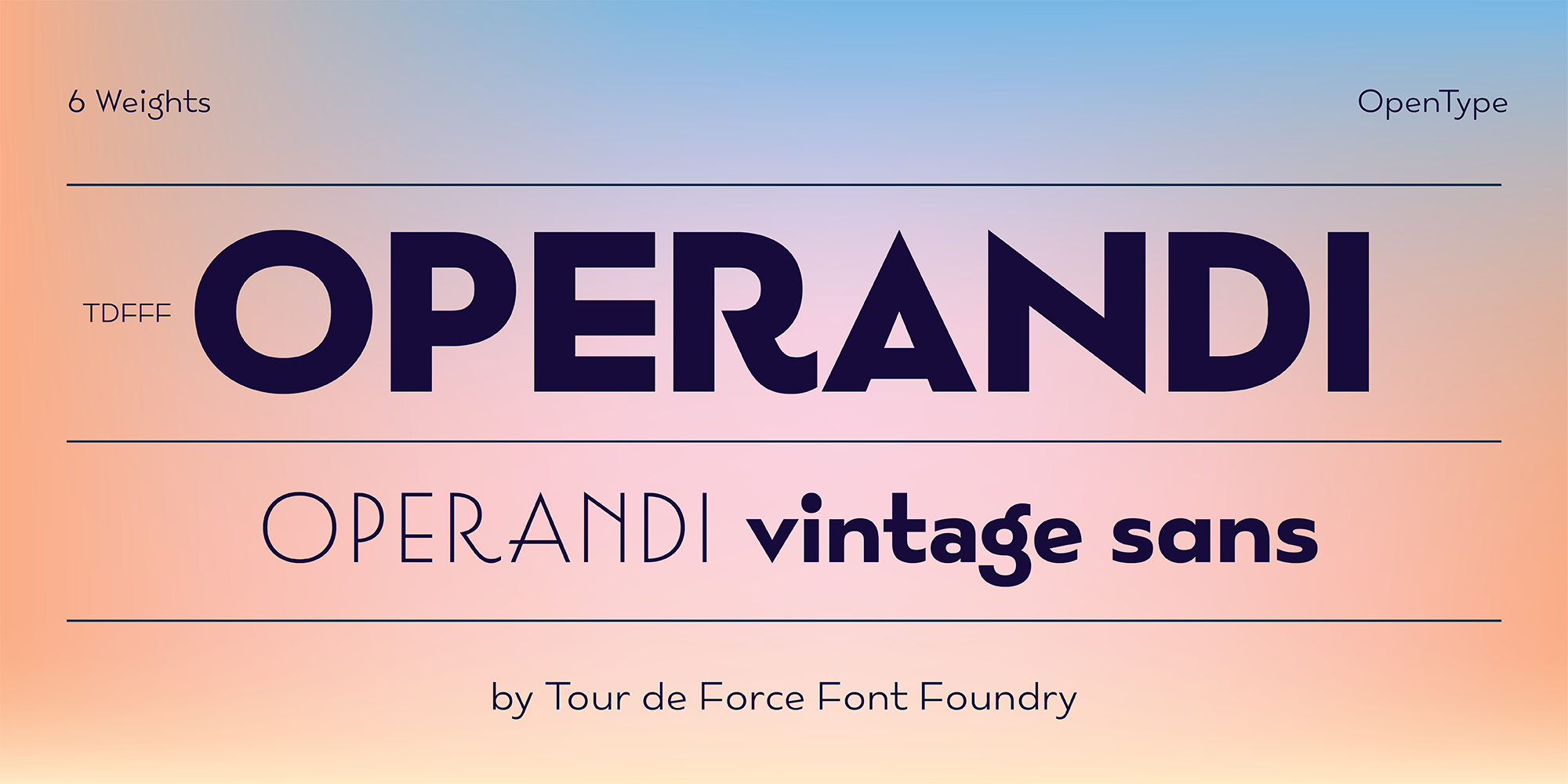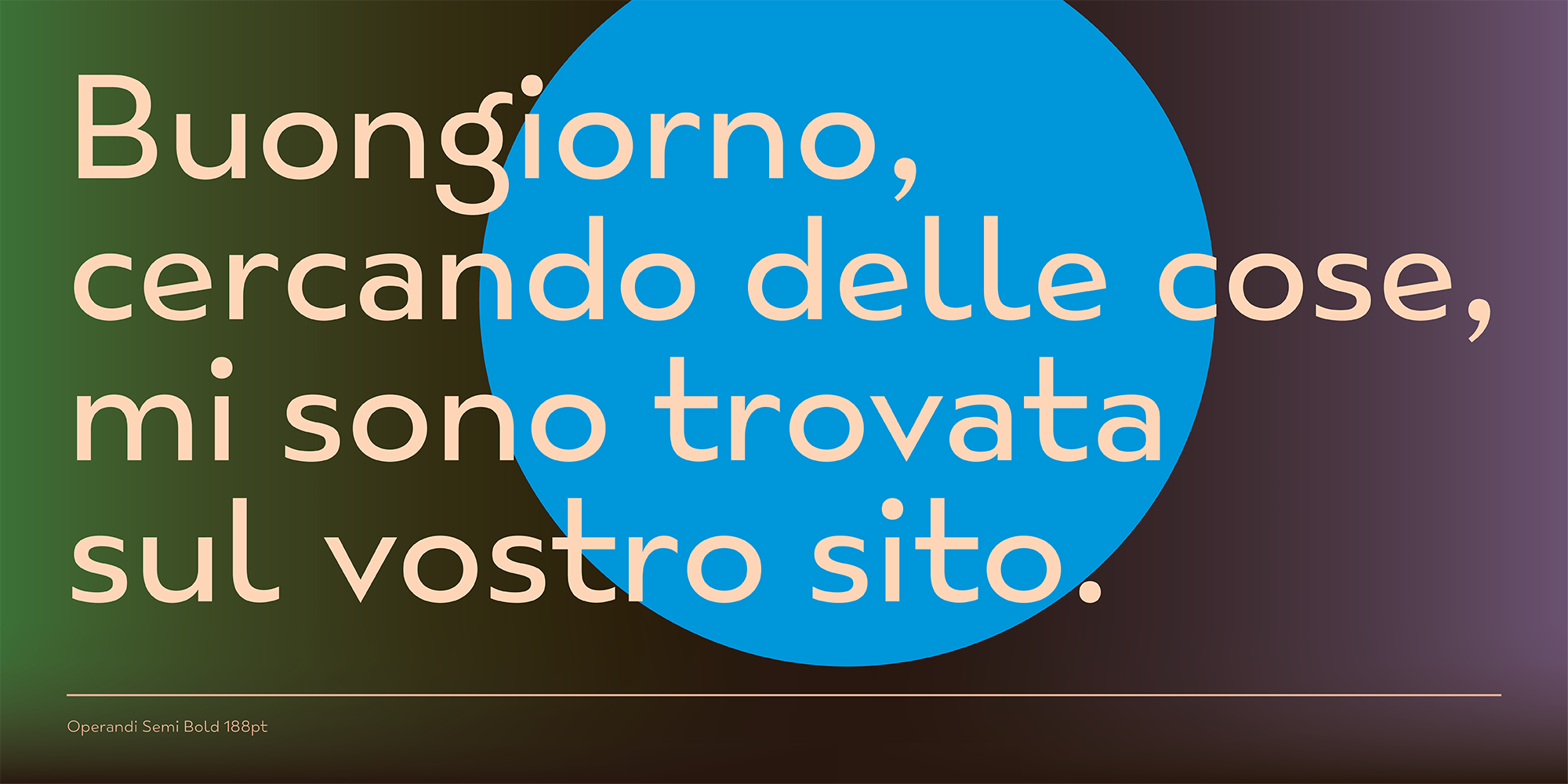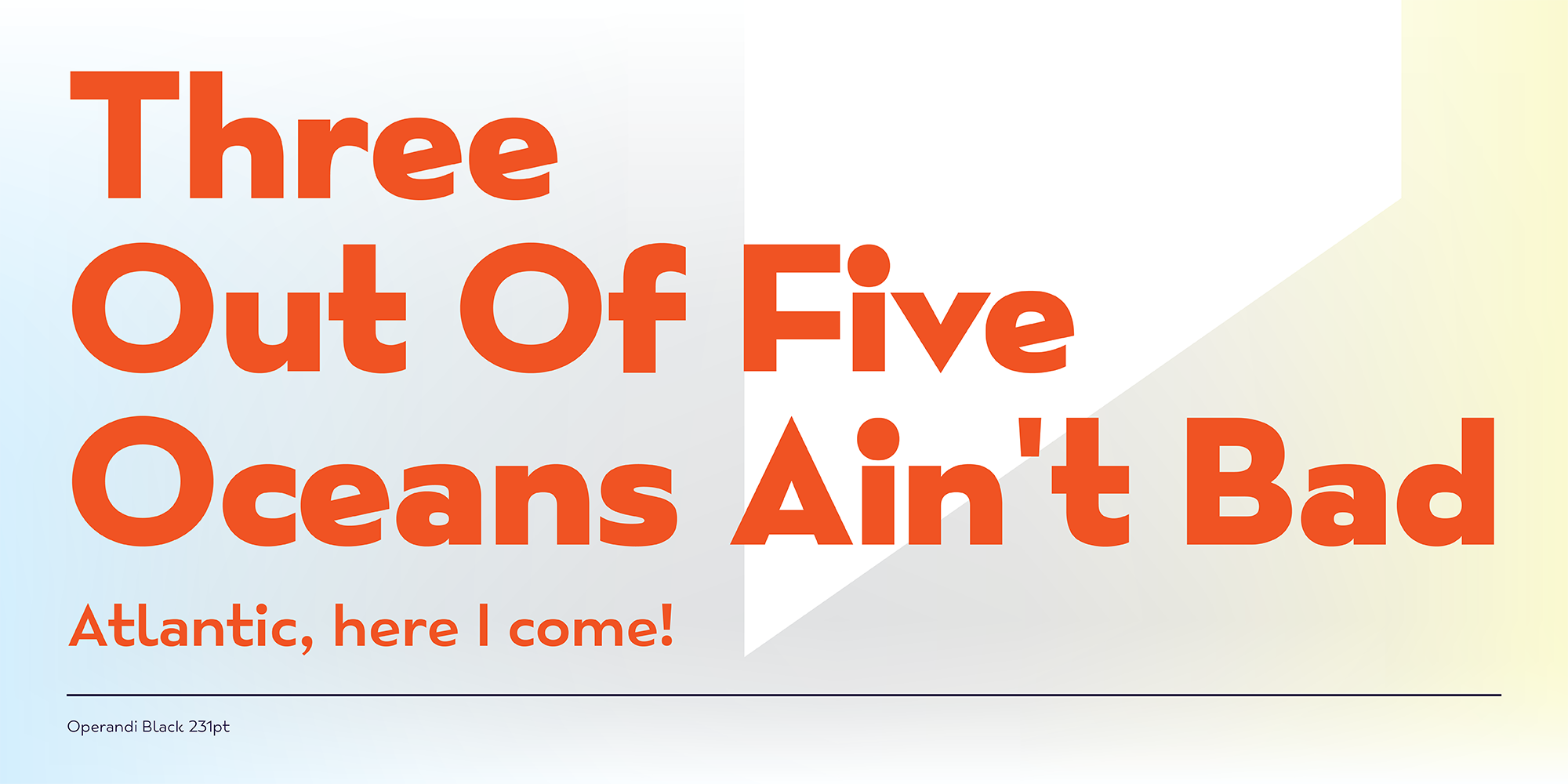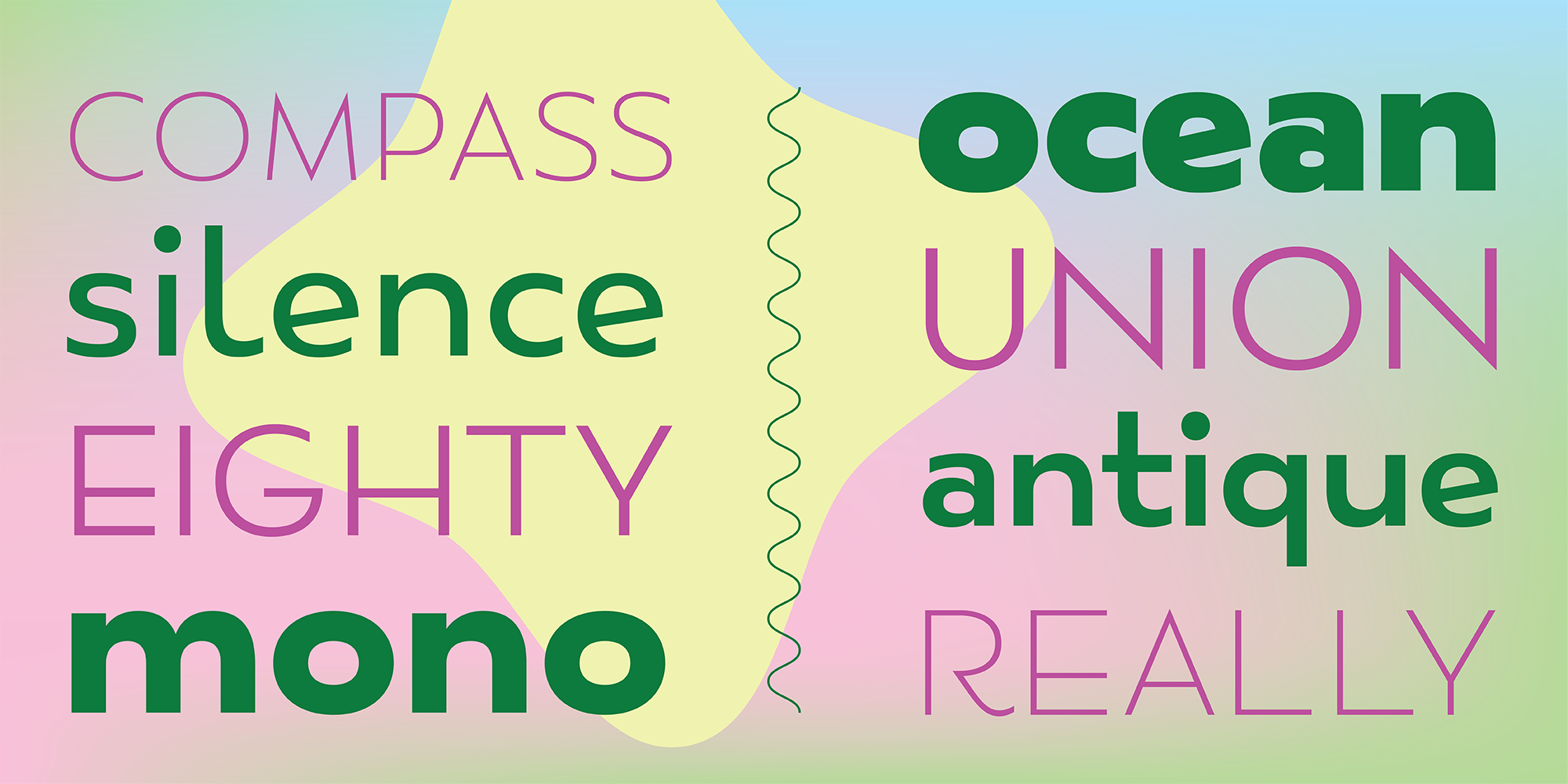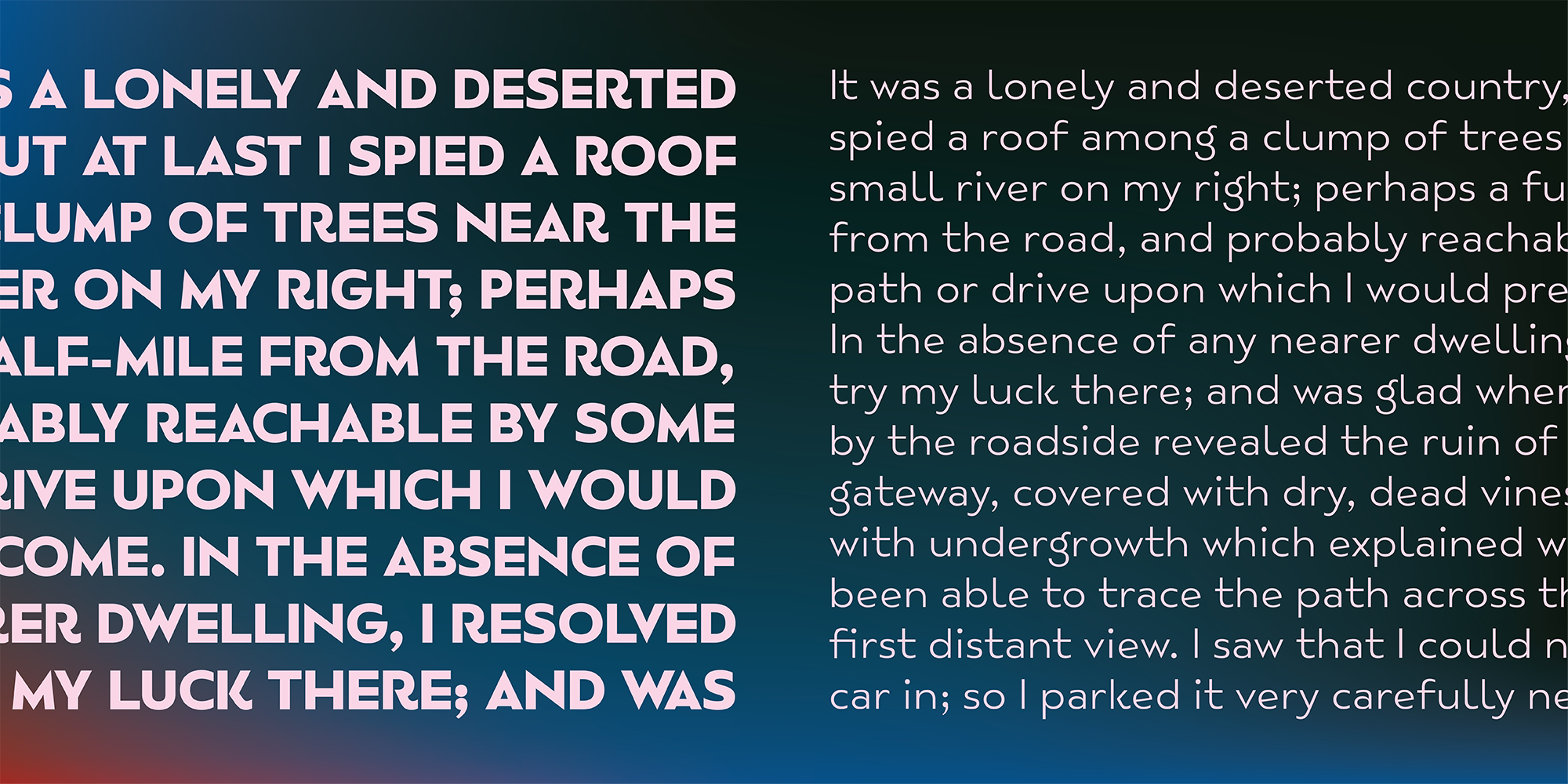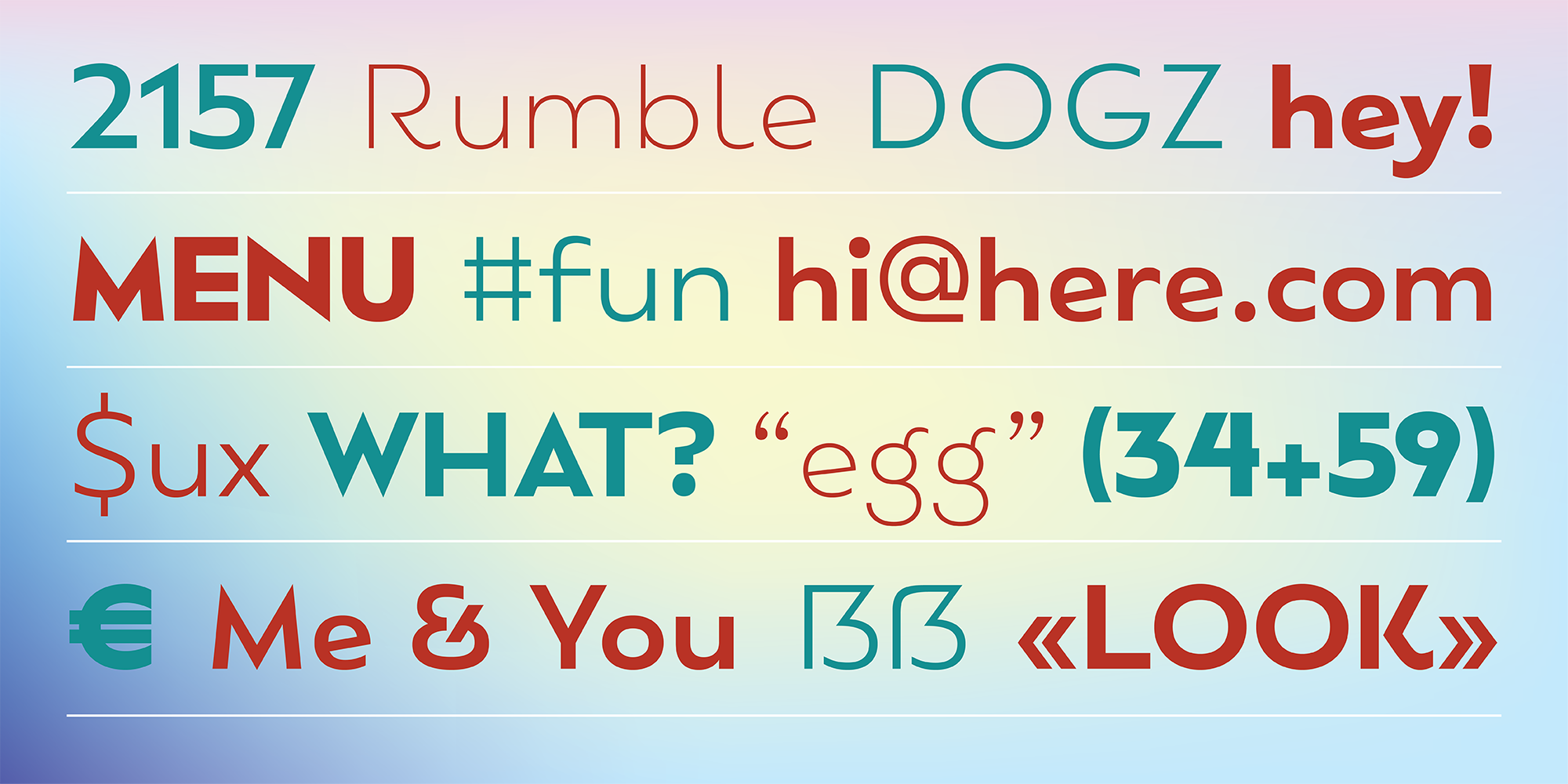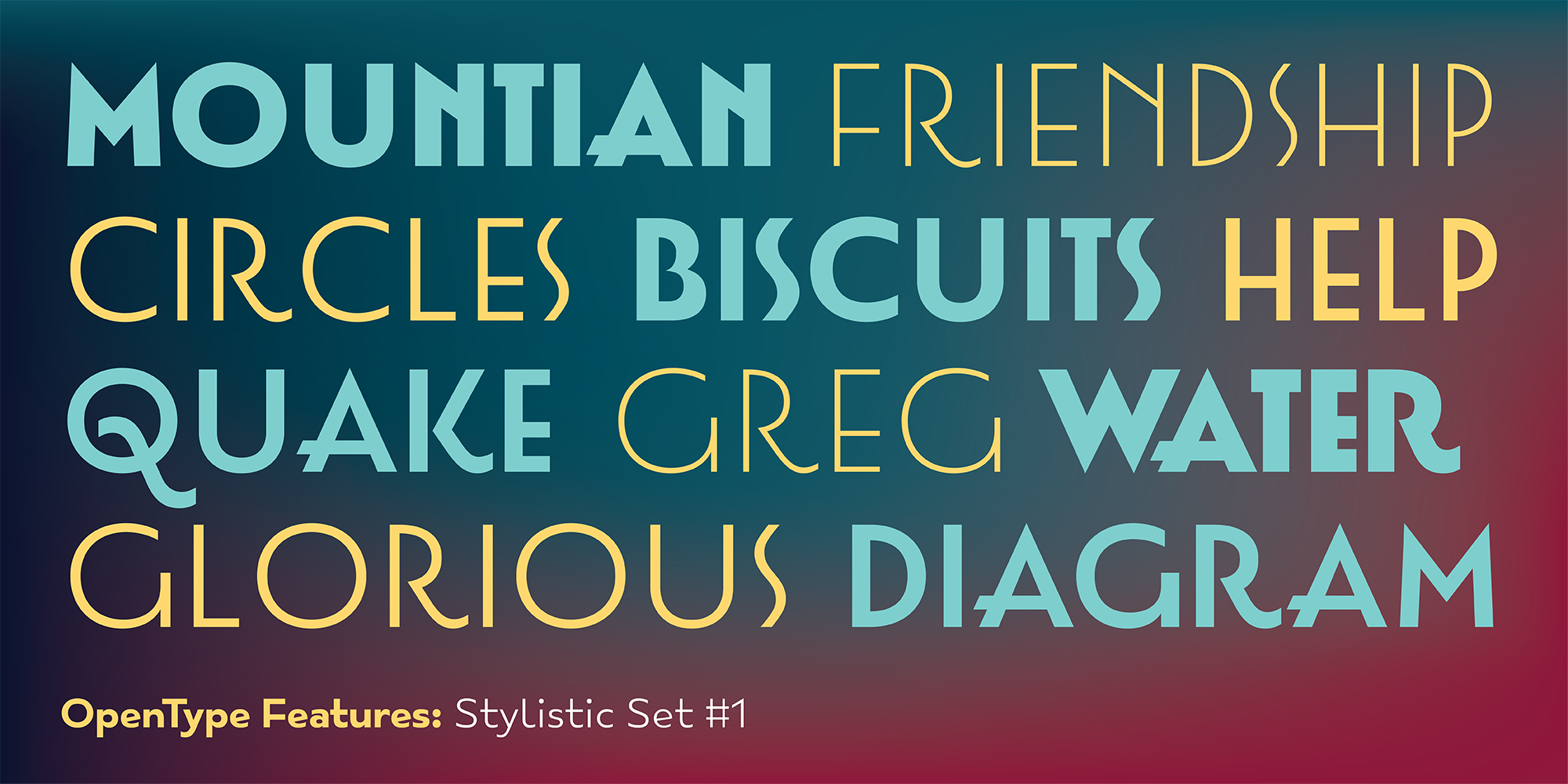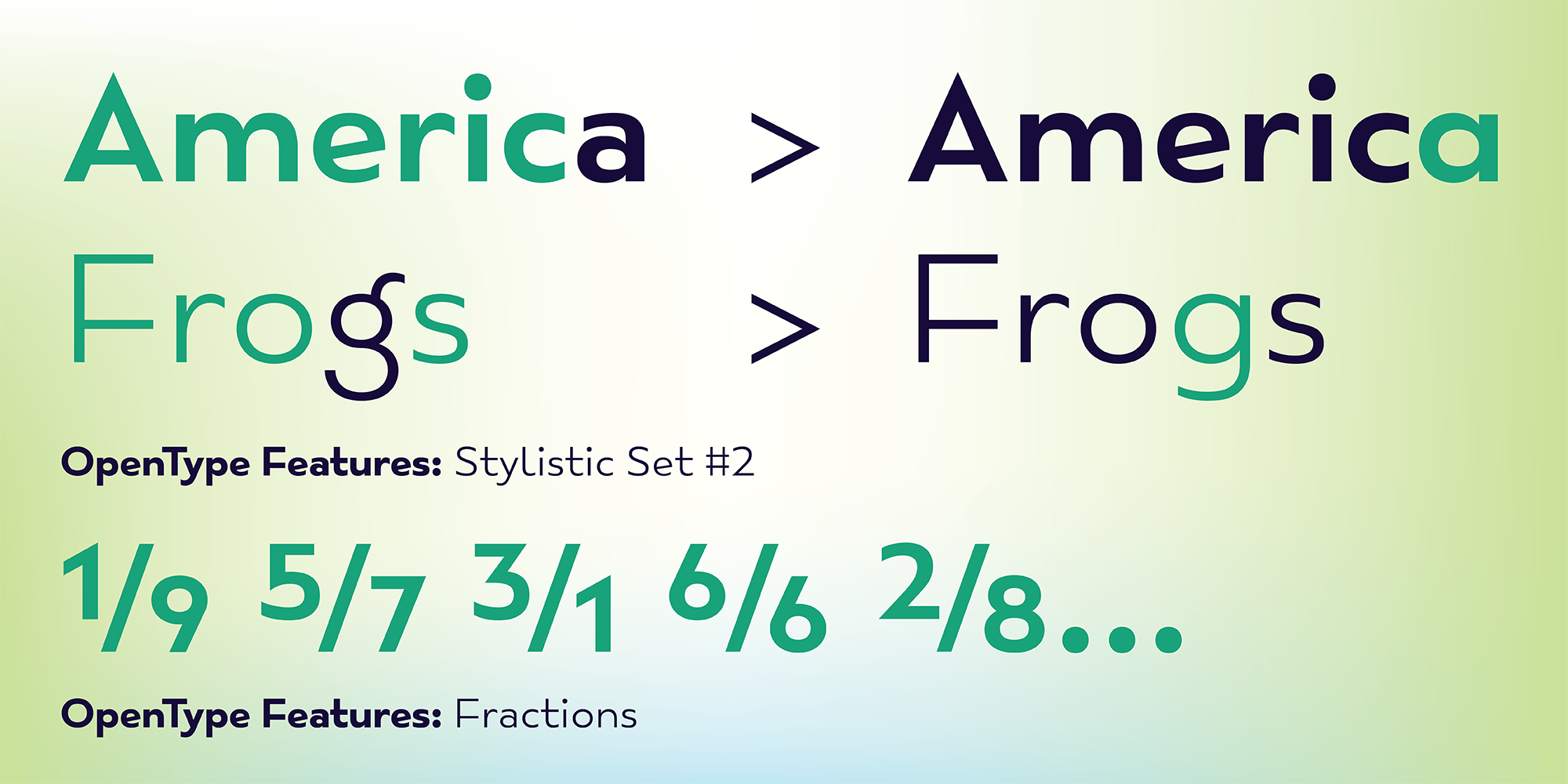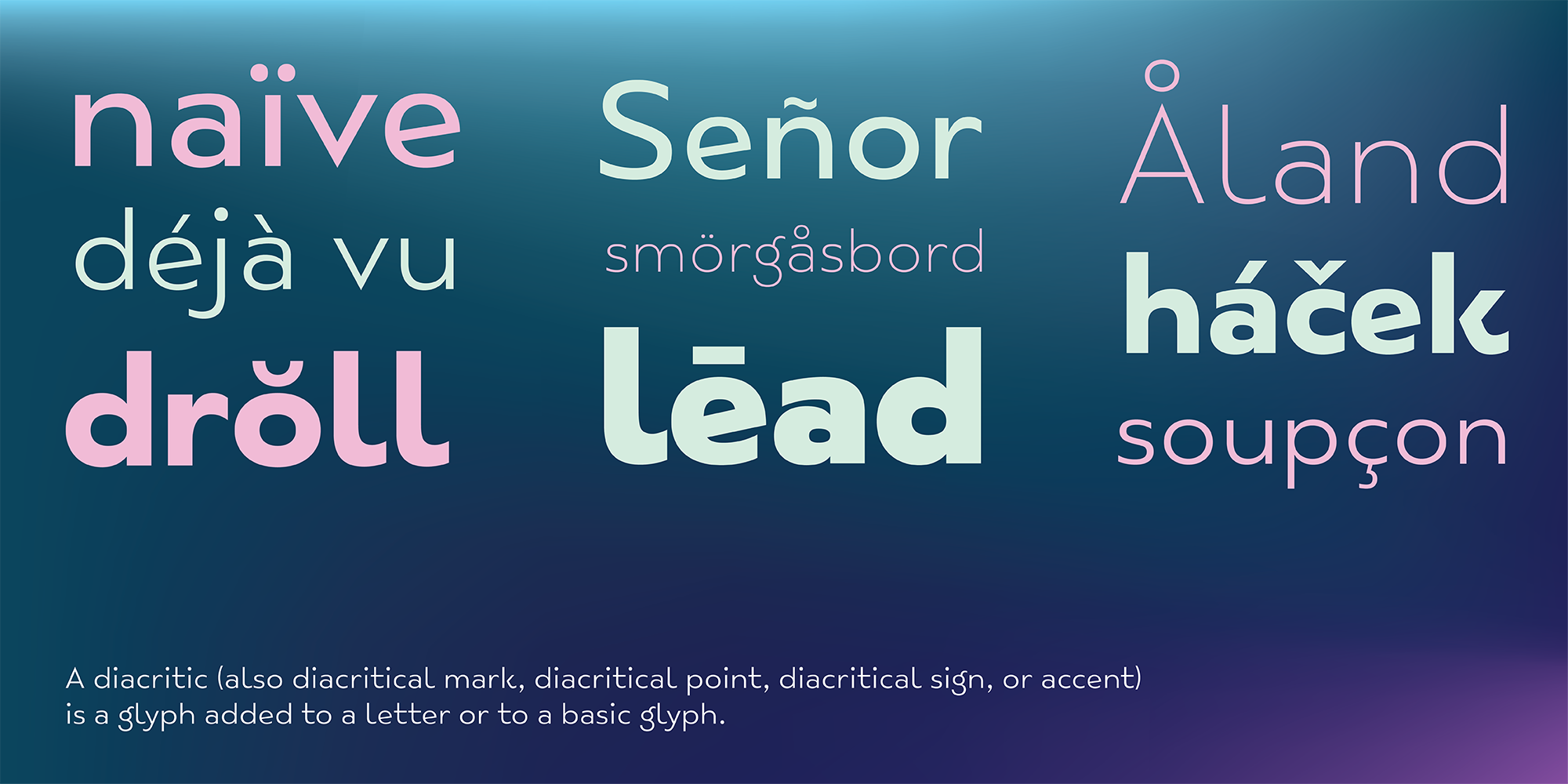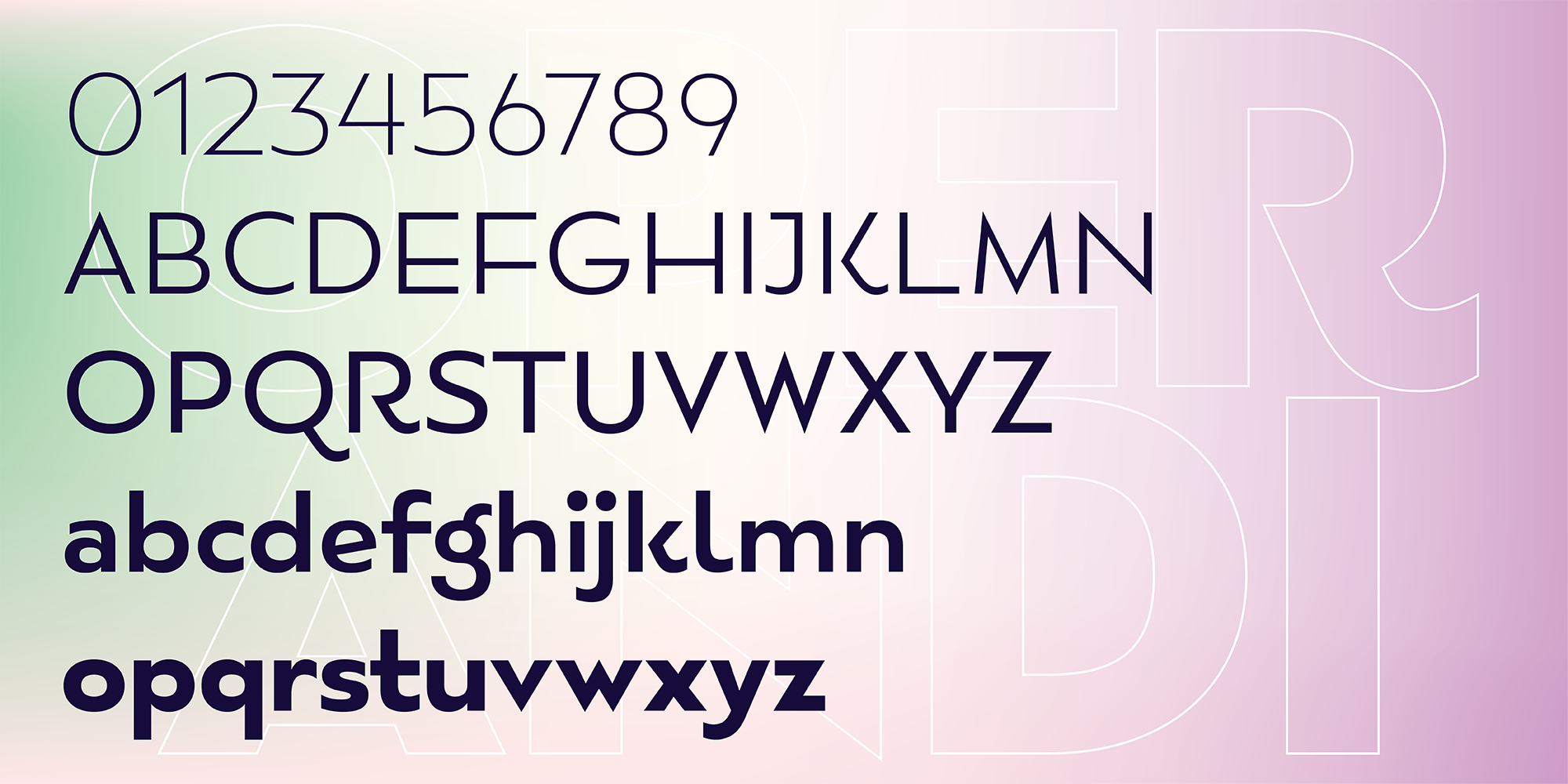
Operandi is geometric sans family available in 6 weights inspired with vintage posters design from period between two great wars.
Unpretentious family guided by simple design solutions – slightly wide by its character, decently recognizable, fully capable to lead any project – Operandi offers combination of functionality and visual balance that should be enough to recommend it as right choice.
From Light to Black, packed in extended Latin character map, Operandi also contains a few OpenType features such as Ligatures, Fractions and 2x Stylistic Sets – one for complete uppercase alternatives and one for "a" and "g".